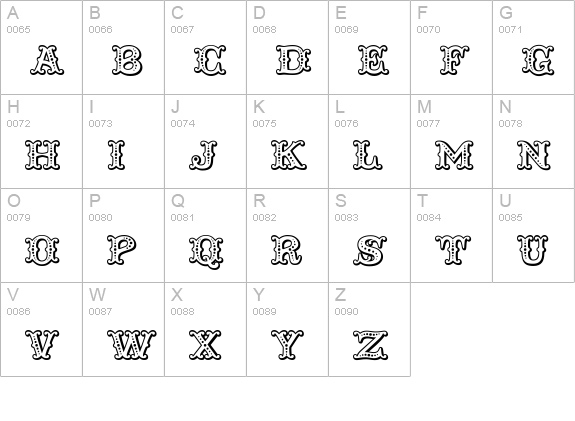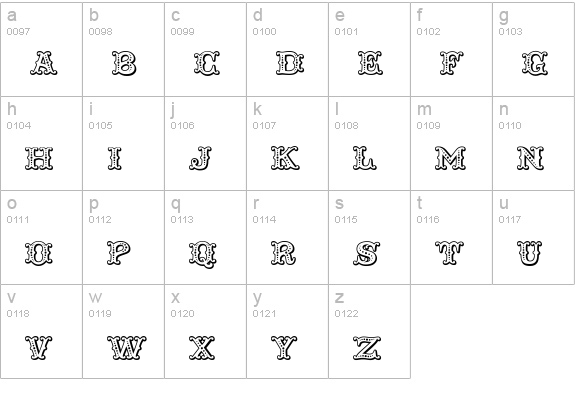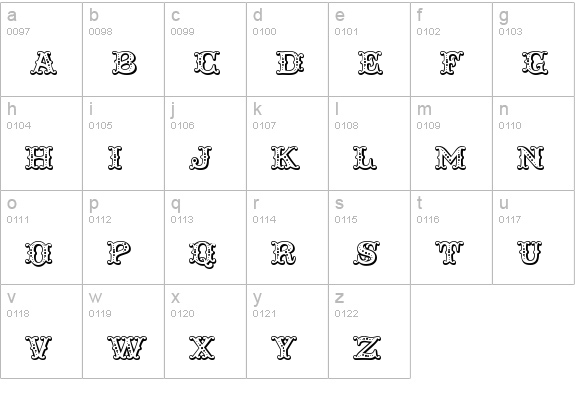
Introducing Taqueria Open Decor font, a stunning typeface that exudes the vibrant energy of a bustling Mexican taqueria. Designed with meticulous attention to detail, this font captures the essence of hand-painted signage found on the streets of Mexico City. Its authentic and eye-catching letterforms effortlessly blend the traditional with the contemporary, making it the perfect choice for projects that require a touch of Latin American flair. With its bold and playful aesthetic, Taqueria Open Decor font is sure to command attention and bring a festive atmosphere to any design. Whether you're creating menus for a trendy taco joint, designing invitations for a fiesta-themed celebration, or crafting eye-catching posters for a cultural event, this font will infuse your work with a sense of excitement and authenticity. One of the best aspects of Taqueria Open Decor font is that it is freely available to download at FontsMarket.com. This means that you can easily access and incorporate this delightful typeface into your projects without any hassle. Embrace the boldness and creativity of the taqueria culture with this distinctive font and watch as your designs come to life in a truly unique way. So, if you're looking to add a touch of Latin American charm to your next design project, look no further than Taqueria Open Decor font. Its captivating letterforms, combined with its availability for free download at FontsMarket.com, make it an excellent choice for designers, artists, and enthusiasts alike. Let your creativity run wild and transport your audience to the vibrant streets of Mexico with this remarkable font.